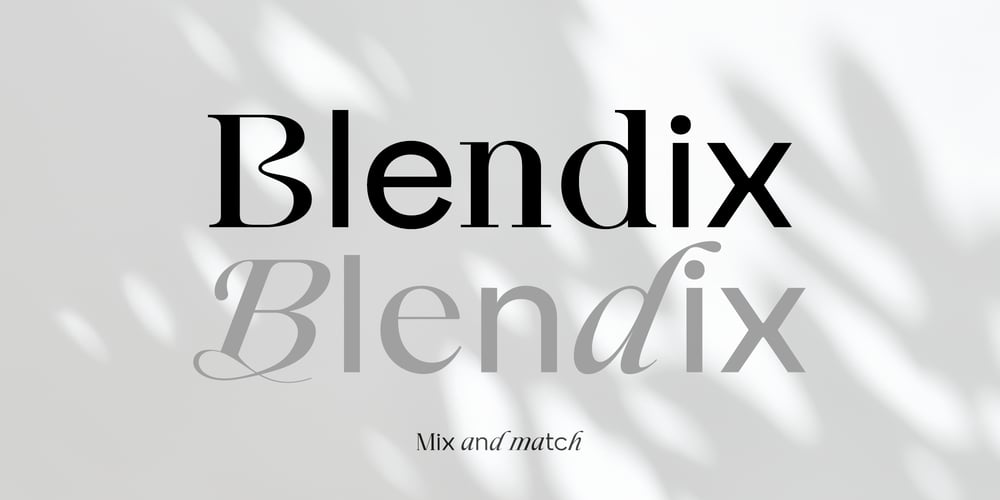
Blendix Font Family was designed by Ryul Davidson and published by Brenners Template. Blendix contains 18 styles and family package options. We decided to take on this experimental yet radical challenge for a mix-and-match pairing that requires artistic creativity and software precision.To reduce the unfamiliar feeling caused by pairing, the geometric sans and display serif were mixed, the vertical metrics were unified, and the contrast of the glyphs was adjusted.And, through the transformation of the glyphs, the opportunities for designers to choose were expanded, and the kerning for the 21 ligatures was also refined.Ligatures : an, as, bs, ca, do, en, ff, go, hr, ig, jo, ke, nd, po, qu, re, ss, ta, un, wa, wn